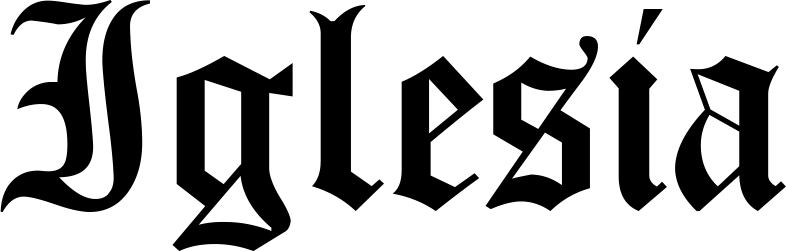
Iglesia Font
Designed byDieter Steffmann
Picking a suitable font for your text layout can enhance the quality of your project ten times better! This gothic font can help you to create seamless posters, logos, flyers, and so on. It’s coming in grandiose characters and brings a grunge and dark feel to your project. Remember, Iglesia is not that legible; download it now and challenge your customers!